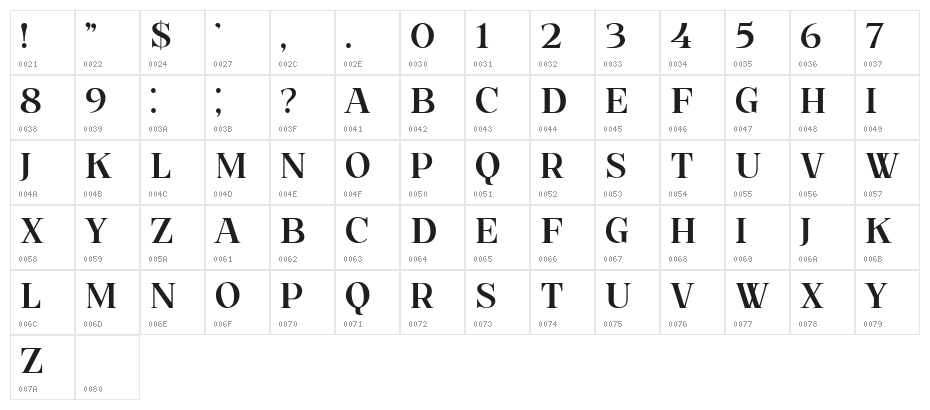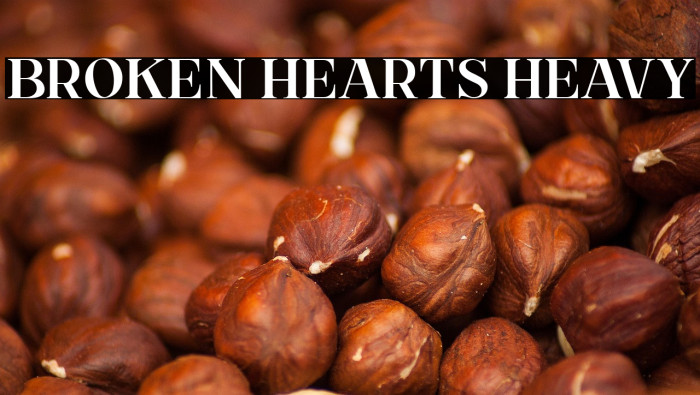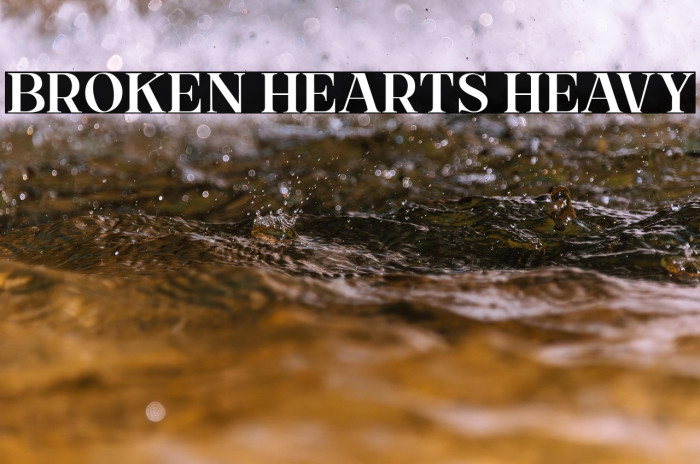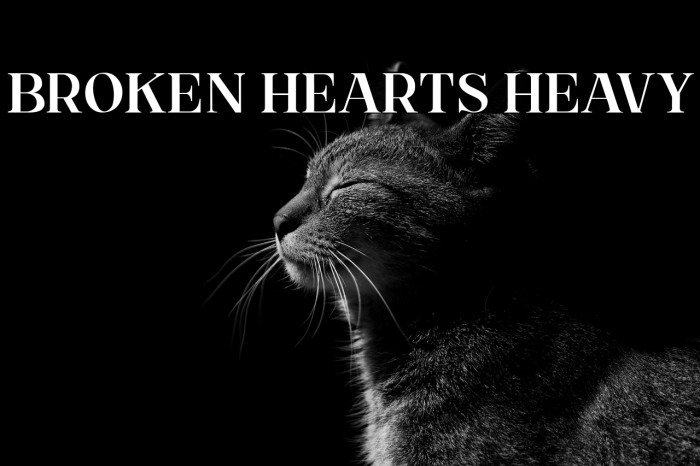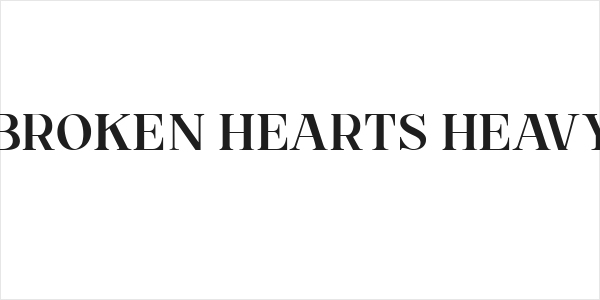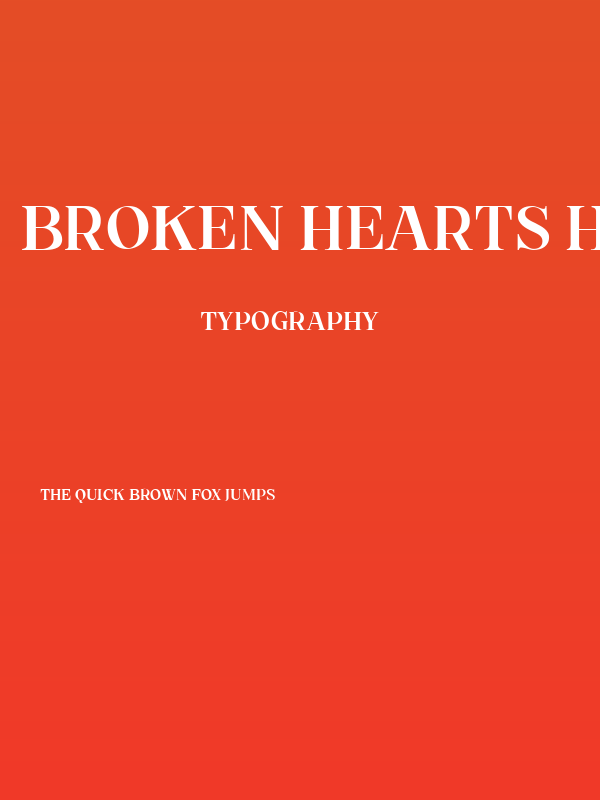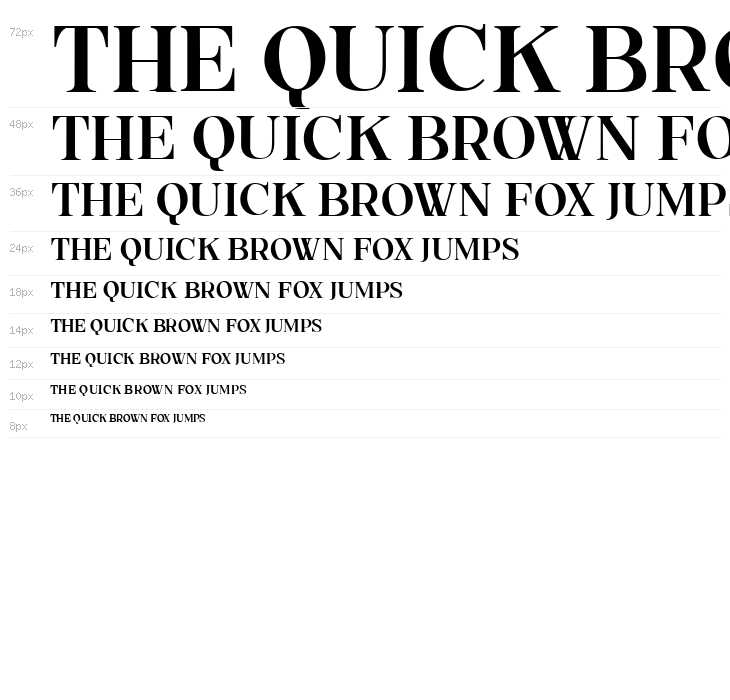
Broken Hearts Heavy Font
Broken Hearts Heavy Description
This font features a bold and dramatic serif style, characterized by thick strokes and high contrast between thick and thin lines. The serifs are pronounced, adding a classic and authoritative feel to the text. The uppercase letters are particularly striking, with a strong presence that commands attention. The lowercase letters maintain the same boldness, ensuring consistency throughout. The numbers are equally bold, making them stand out clearly. Special characters are designed with the same attention to detail, ensuring they integrate seamlessly with the rest of the font. This font is ideal for making a statement, whether in headlines or logos.
Overall StyleClassic
Proposed ProjectsIdeal for use in headlines, logos, branding materials, and editorial design where a strong, classic presence is desired.